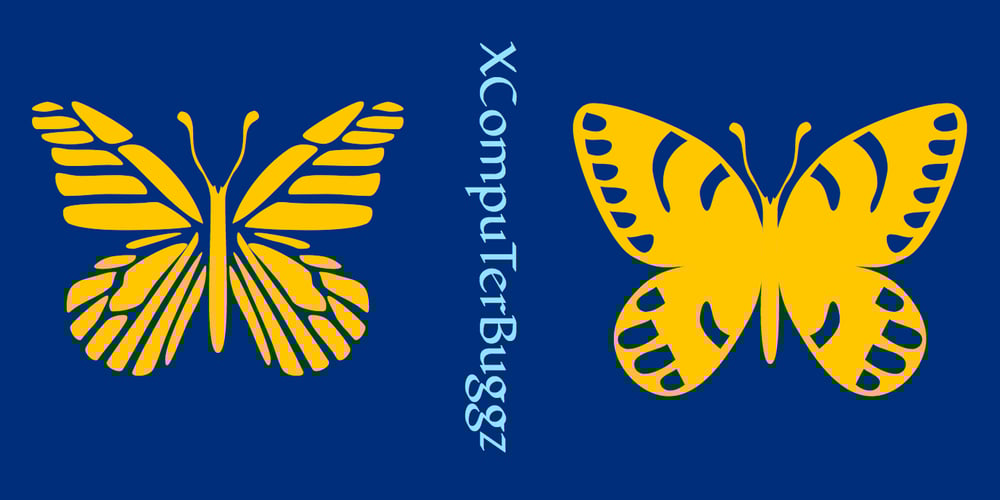
XComputerBugs Font Family was designed by Robert Schenk and published by Ingrimayne Type. XComputerBugs contains 1 styles and family package options. XComputerBugs is a pictorial font of insects, mostly butterflies and moths. A few are based on actual species, but most are fanciful and meant only for decoration.